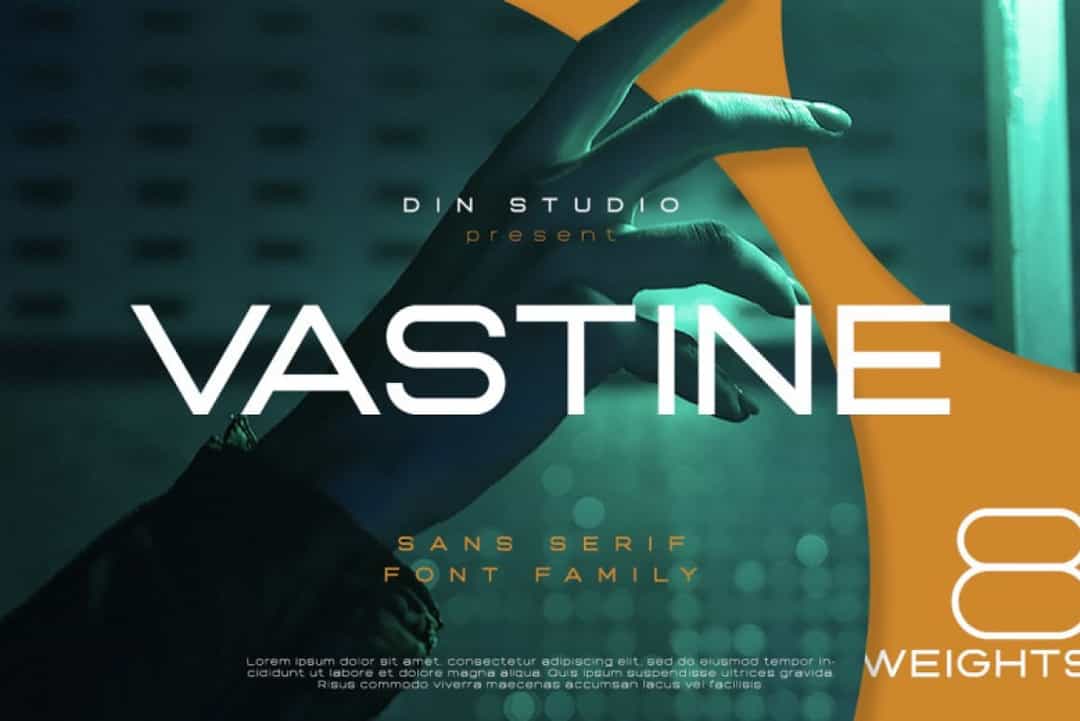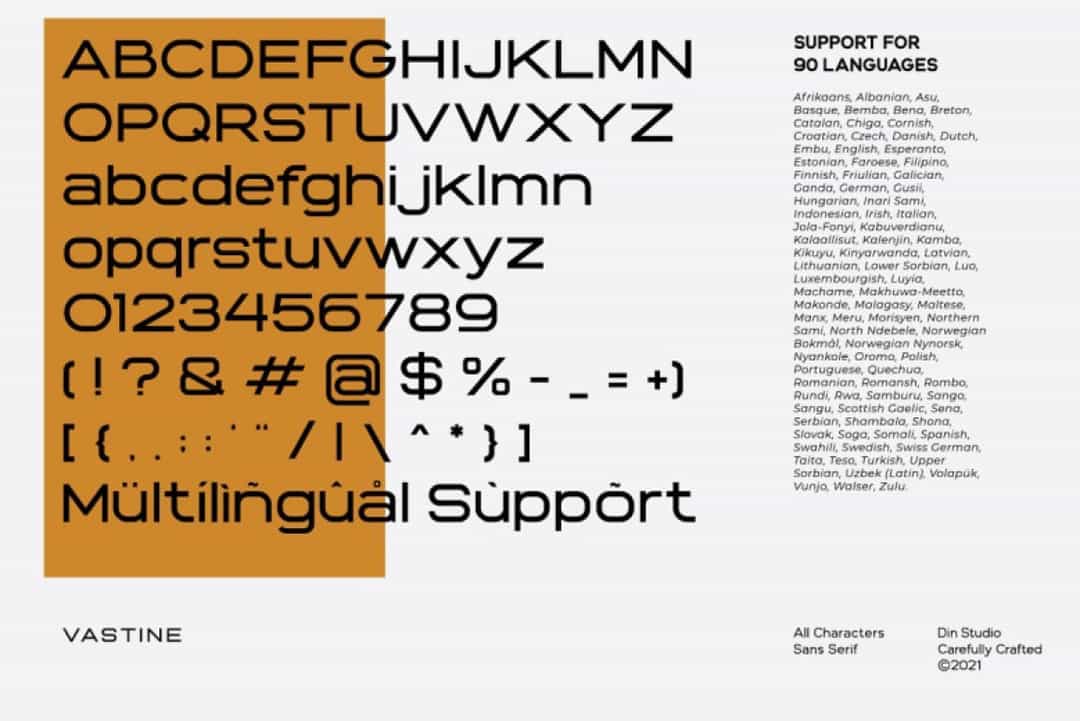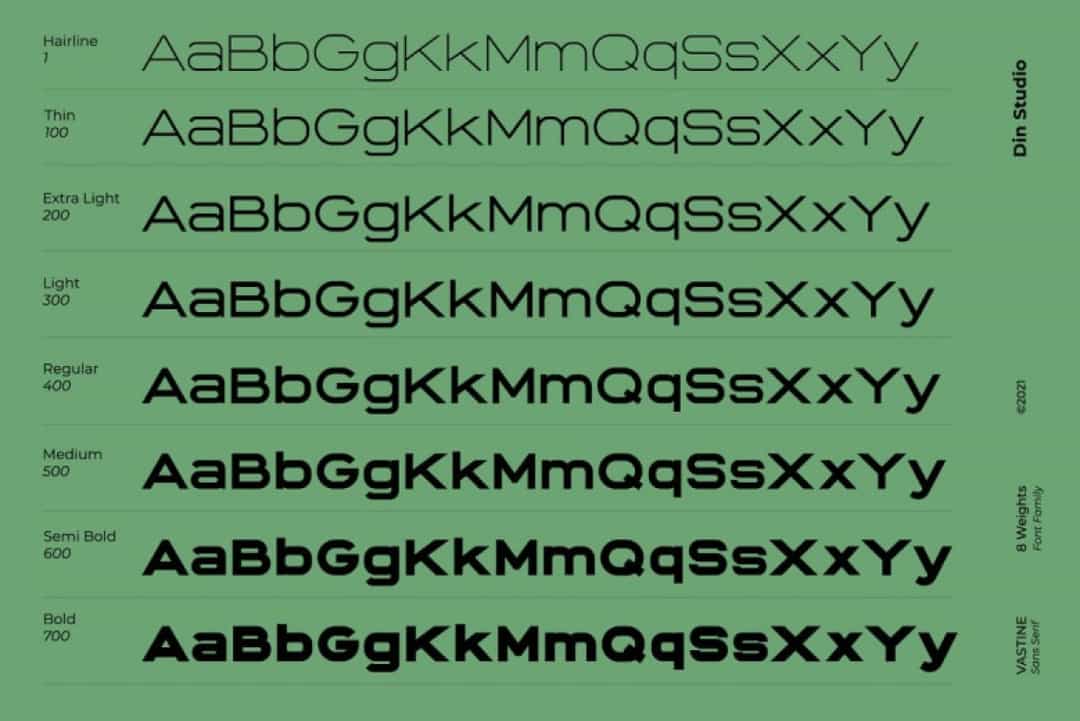
Discover Vastine Font, part of the Sans Serif collection—a versatile and unique font perfect for adding a personal touch to your projects. Download it for free and enjoy crafting designs with style, from invitations to social media posts. This font is available exclusively for personal use, giving you the freedom to create without limits. Unlock your creativity with Vastine Font today!
Vastine Sans Serif Font is sure to impress, with many options that make your designs more beautiful by using these elegant fonts. Constructed using both lowercase and uppercase letters for optimal viewing while being easy on the eyes while remaining easy for readers.